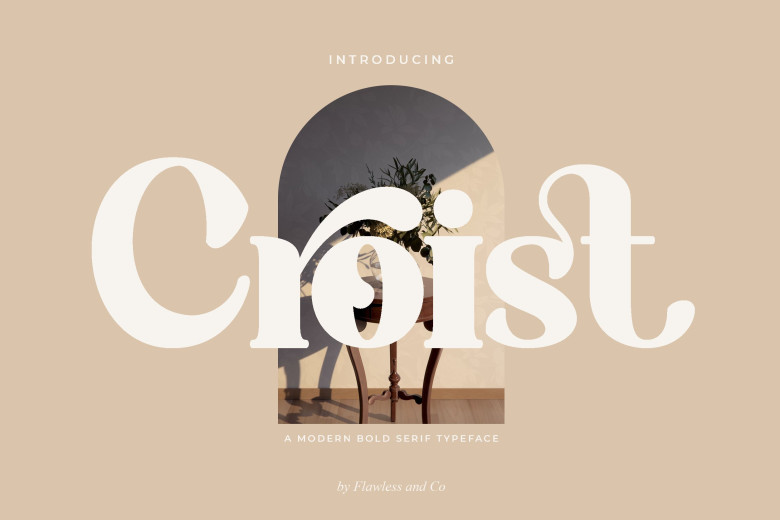
Croist Font
Croist features a retro style serif, meticulously hand-crafted and detailed font that would be an invaluable addition to any font library or project. PUA encoded, you can quickly access all its glyphs and laces!
Croist Serif Font